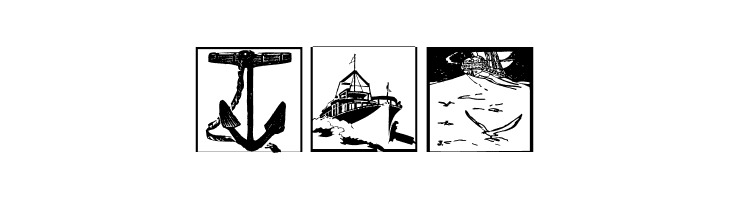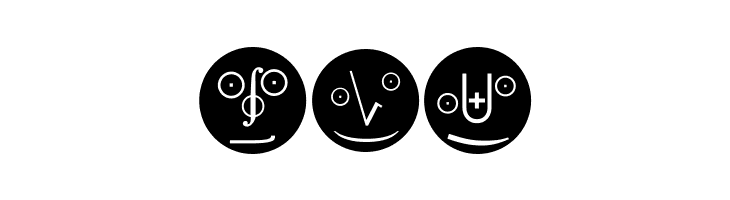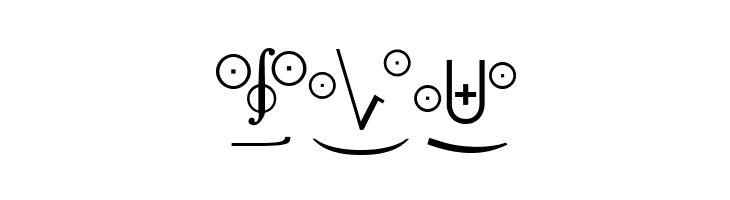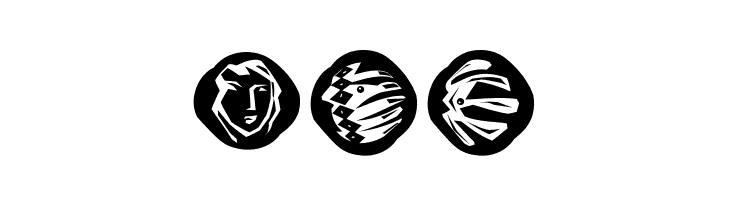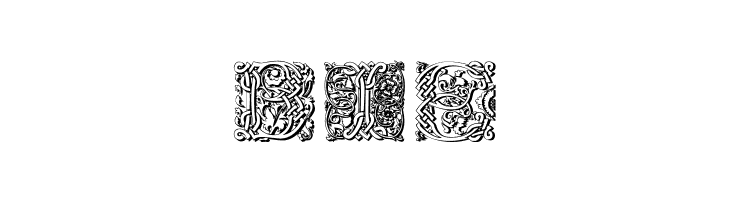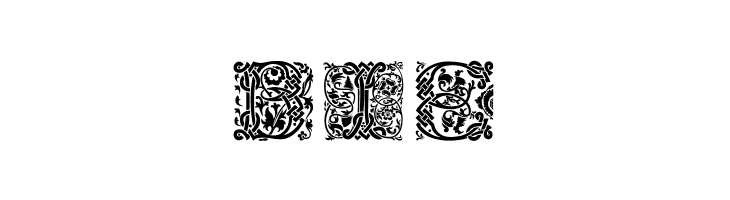
• MarioLuigi2
A bold, playful font with irregular, angular characters.
• MarioLuigi2
• MaritimeSquares
Decorative maritime-themed dingbat set with bold, vintage illustrations.
• MarsFraktur Normal
A traditional blackletter font with ornate and angular letterforms.
• MasselleAM
An ornate, vintage-style font with intricate floral patterns.
• MasselleAMShadow
An ornate and decorative font with intricate swirls and flourishes.
• MathEmoticonsInverse
A creative set of emoticons using mathematical symbols to depict facial expressions.
• MathEmoticonsOne
A playful and whimsical set of characters combining mathematical symbols and emoticons.
• MatisseTraces2007
Abstract, hand-drawn decorative glyphs with organic, expressive forms.
• Maudlin Sketch